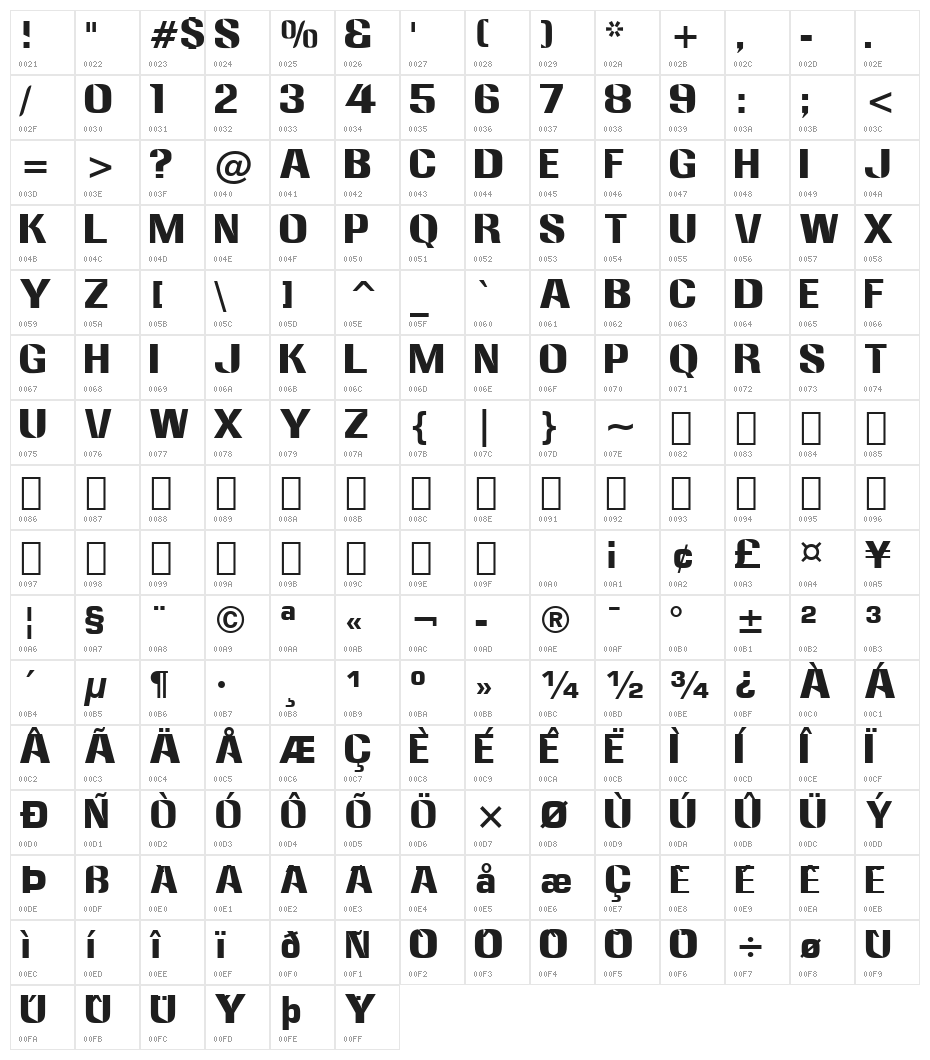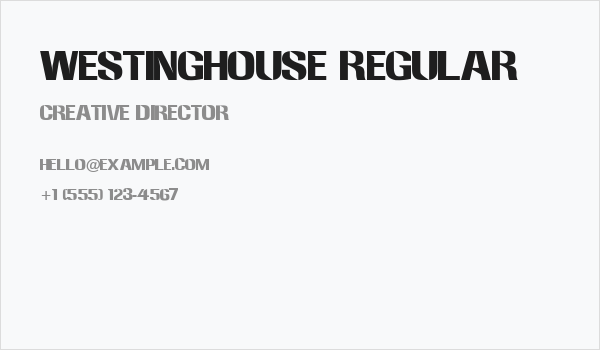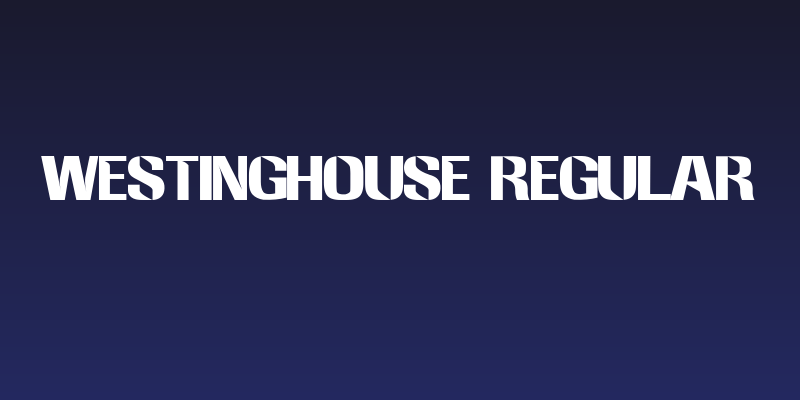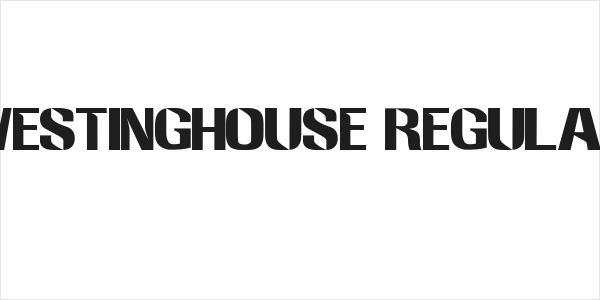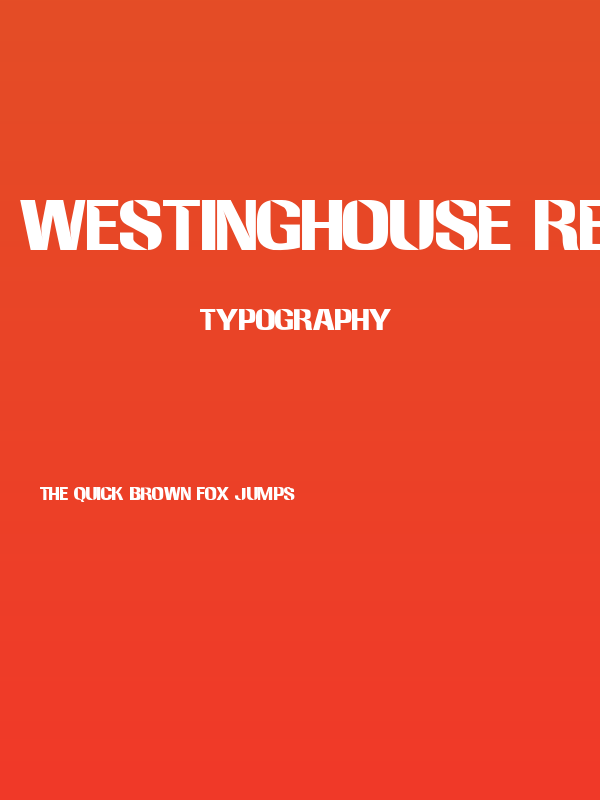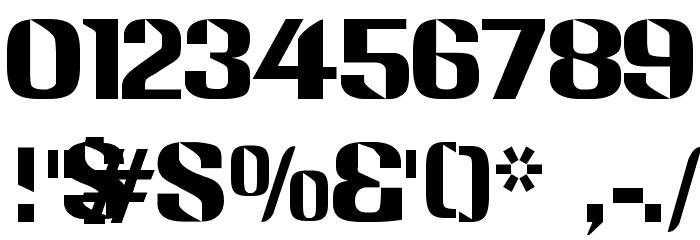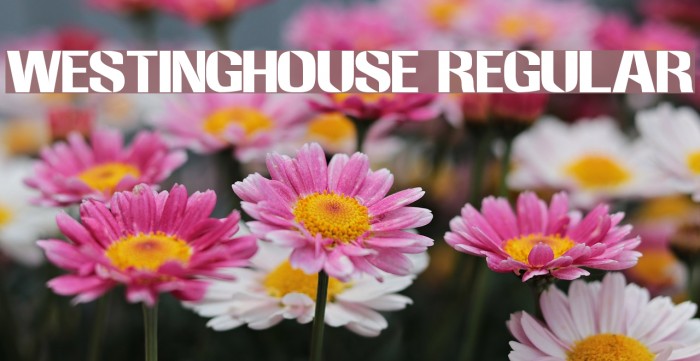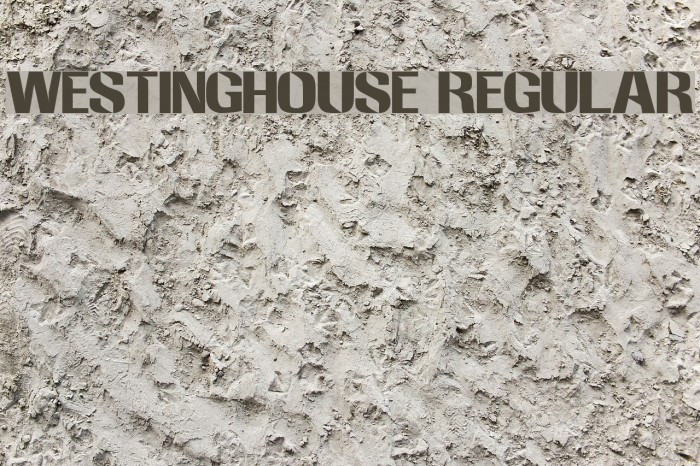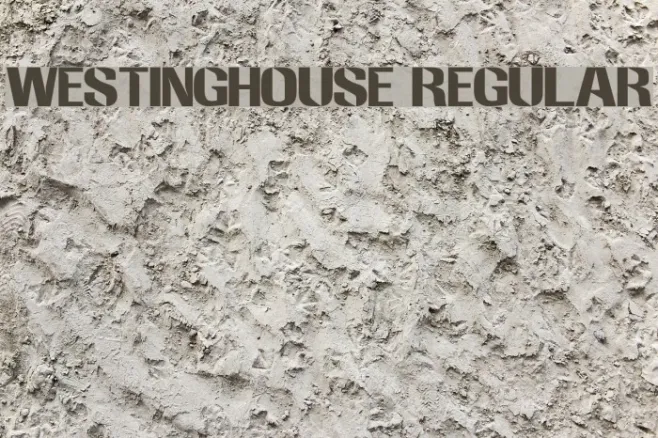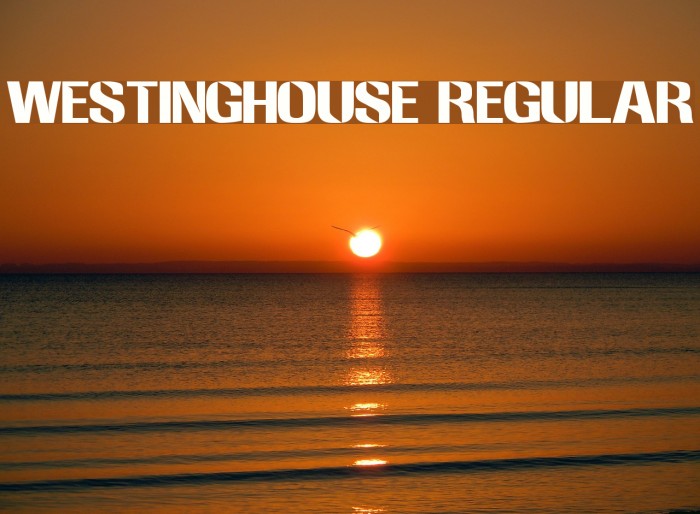
Westinghouse Regular Font
Westinghouse Regular Description
This font exhibits a bold and striking appearance with strong geometric shapes and a modern aesthetic. The characters are crafted with a distinct angular style, featuring sharp edges and clean lines that create a sense of power and authority. The uppercase letters are particularly prominent, with a wide stance and uniform height that contribute to the font's commanding presence. The numerals and special characters maintain this boldness, ensuring consistency across all glyphs. This font is ideal for making a statement, capturing attention with its assertive and contemporary design.
| Proposed Projects | Ideal for branding, headlines, posters, and any project requiring a strong visual impact. |